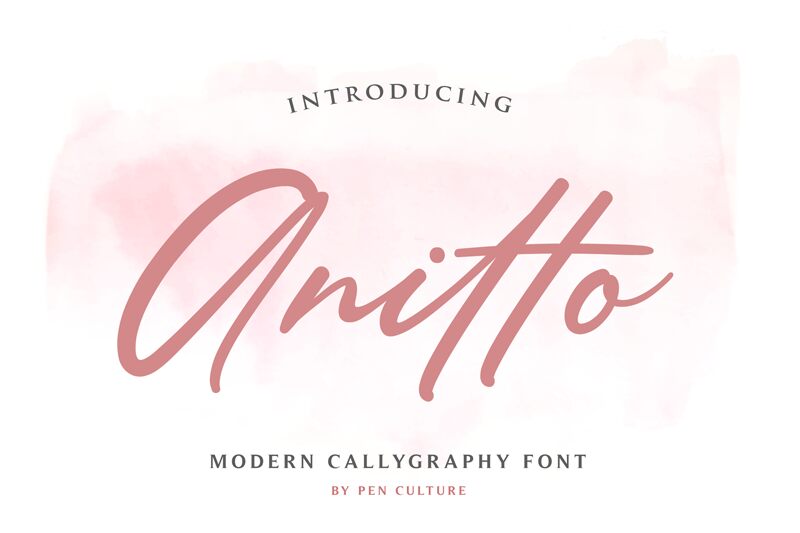
Anitto
Introducing the lovely new Anitto Calligraphy Font!
Anitto Calligraphy inspired by the beauty of Sunday morning in a village. Anitto Calligraphy includes full set of uppercase and lowercase letters, multilingual symbols, numerals, punctuation, and 72 beautiful ligature. The font has smooth and beautiful curves, so would be perfect for all types
- Anitto Calligraphy includes capital and lowercase letters, alternates, and 72 Ligatures
- Numbers + punctuation
- Foreign language support